Tattoo enthusiasts are always on the lookout for fonts that convey a sense of individuality, personality, and flair. One such popular choice is the cursive tattoo font, known for its elegant, flowing lines and artistic appeal.
Whether you’re seeking to create a bold tattoo design, add a personal touch to your Instagram bio, or design a logo, cursive fonts offer the perfect combination of style and legibility. This article dives deep into the world of cursive tattoo fonts, highlighting their features, uses, and the best fonts to consider for your next ink.
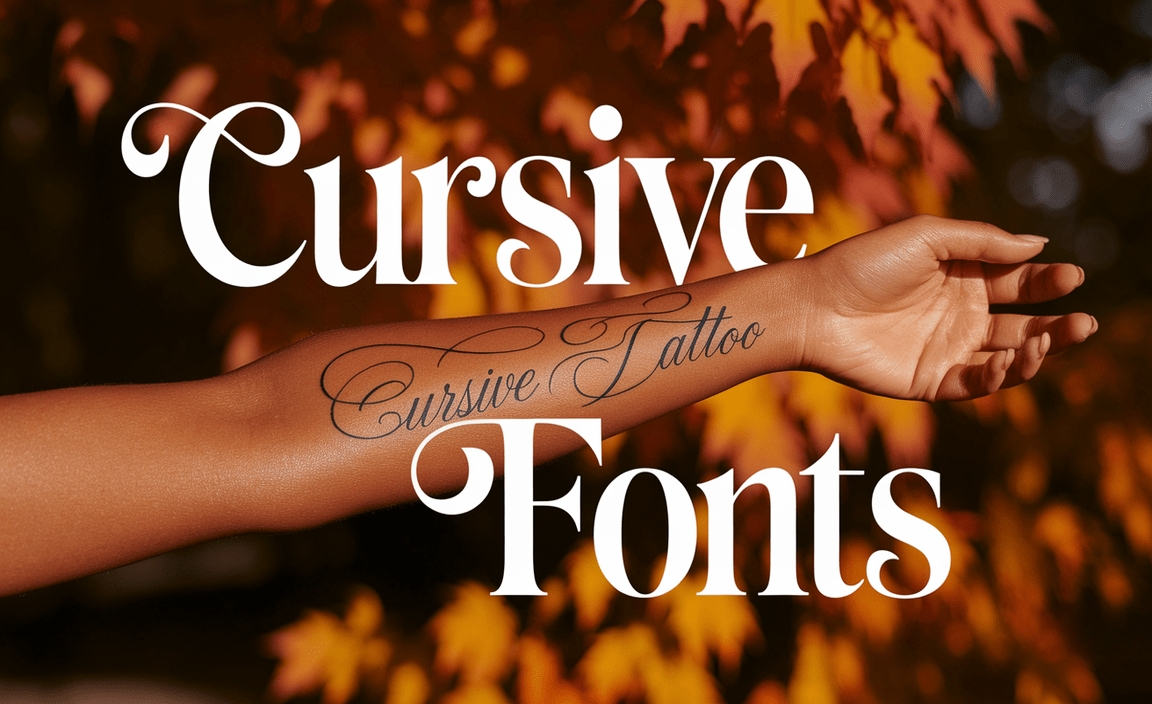
Popular Cursive Tattoo Font Families And Styles
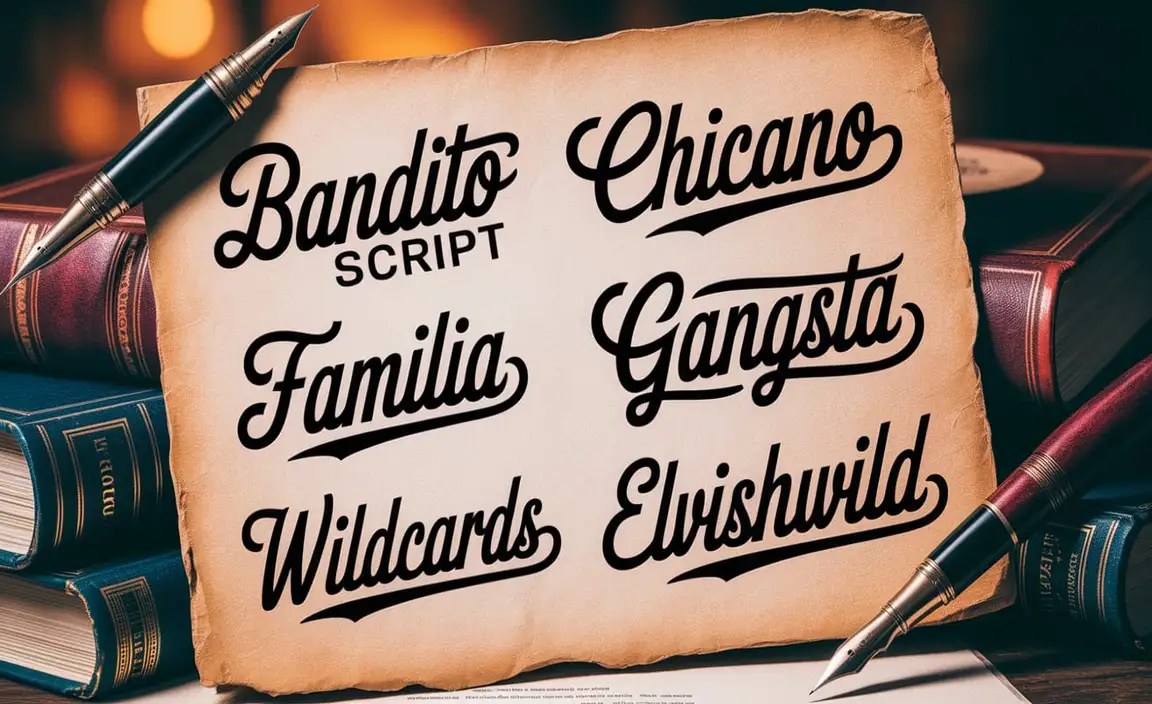
Cursive tattoo fonts are designed to replicate the beauty of cursive handwriting, offering fluid strokes and connections between letters. The cursive style adds a sense of sophistication and elegance to any design. These fonts are perfect for tattoo designs that require a personal, handwritten touch, such as names, quotes, or symbols. The fluid nature of these fonts also allows for artistic expression, making them a popular choice among tattoo artists.
Here are some of the best cursive tattoo fonts to consider for your next tattoo design:
1. Bandito Script
- Designer: Muntab Art
- Styles: Regular
- Description: Bandito Script is a modern cursive font that features smooth, elegant curves and connections. It’s perfect for tattoo designs where a touch of sophistication is desired.
2. Chicano
- Designer: Muntab Art
- Styles: Regular
- Description: Chicano combines cursive elements with bold, artistic strokes, making it a great choice for a tattoo with strong visual impact. It’s especially popular among tattoo artists for large lettering and intricate designs.
3. Familia Script
- Designer: Letrasupply Typefoundry
- Styles: Regular
- Description: Familia Script offers an elegant and refined cursive style. Its delicate strokes make it ideal for wedding tattoos, name tattoos, or any design that requires a touch of grace.
4. Gangsta
- Designer: Muntab Art
- Styles: Regular
- Description: Gangsta combines the boldness of a tattoo font with the flowing characteristics of cursive. It’s perfect for gangster-inspired tattoo designs or something that stands out.
5. Wildcards
- Designer: Blankids
- Styles: Regular
- Description: Wildcards is a playful, cursive font with slightly rounded, whimsical elements. Its modern style adds an artistic touch to any tattoo design, especially for fun and casual designs.
6. Elvishwild
- Designer: Allouse Studio
- Styles: Regular
- Description: If you’re looking for something unique, Elvishwild offers a mystical, flowing cursive style with intricate details. It’s perfect for fantasy-themed tattoo designs, such as names in Elvish or magical symbols.
7. Cardilan Tatto
- Designer: Romie Creative
- Styles: Regular
- Description: Cardilan Tatto is a smooth, elegant script font that offers a subtle yet stylish flair. It’s ideal for tattoos that require both elegance and readability.
Why Choose Cursive Fonts for Your Tattoo?
- Elegance and Fluidity: Cursive fonts, with their flowing lines, bring an air of elegance to your ink. The smooth transitions between letters provide a soft, artistic look that’s perfect for tattoo designs.
- Personal Touch: Cursive handwriting has a personal and intimate feel. Choosing a cursive tattoo font for your design is a way to make your tattoo unique and meaningful.
- Versatility: Cursive fonts come in a variety of styles, from fancy and decorative to simple and clean. Whether you’re designing a bold piece or something delicate, there’s a cursive font style to suit your needs.
- Great for Text and Lettering: Cursive fonts work wonderfully for both short and long pieces of text. Whether it’s a short quote or an extensive passage, a cursive tattoo font can add the perfect amount of flair.
Best Cursive Font Pairings
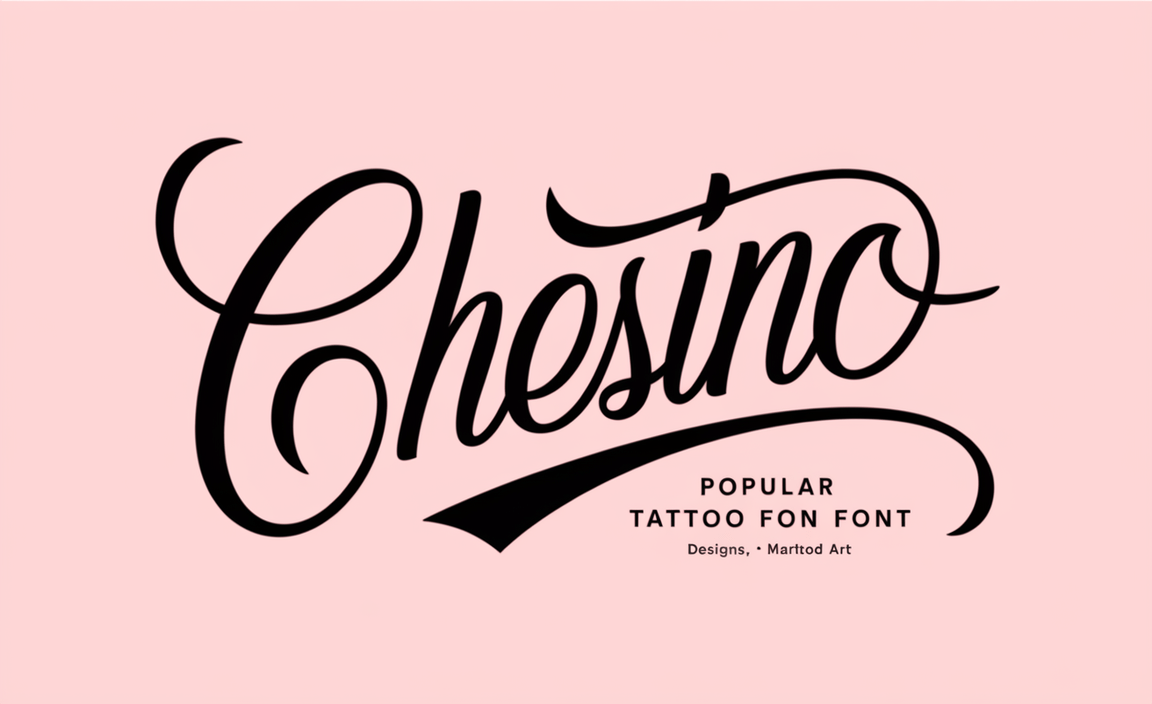
Cursive tattoo fonts pair beautifully with other font styles to create a balanced and visually appealing design. Here are some great pairing options:
- Cursive with Gothic Fonts: Combining cursive fonts with gothic fonts creates a striking contrast that works well for tattoo art. The elegance of cursive blends beautifully with the boldness of gothic letters, perfect for bold tattoo designs.
- Cursive with Modern Fonts: Pairing a cursive font with a modern sans-serif font is a great way to mix traditional elegance with contemporary style. This pairing works well for tattoos that blend traditional scripts with modern messages.
- Cursive with Calligraphy Fonts: Calligraphy fonts have a similar flowing, artistic style to cursive fonts. They can complement each other well in tattoo lettering, especially in designs where the text should flow seamlessly.
Where to Use Cursive Tattoo Fonts
Cursive tattoo fonts are versatile and can be used in a wide range of tattoo designs. Some common uses include:
- Names and Initials: Cursive fonts are popular for name tattoos or initials. The flowing nature of cursive lettering adds a personal and meaningful touch to any name.
- Quotes and Phrases: Long quotes or short phrases are often done in cursive tattoo fonts to add elegance and style. Whether it’s a famous saying or something personal, cursive fonts make the words stand out.
- Symbols and Logos: Cursive fonts can be integrated into logo designs or tattoo symbols to add a touch of class. This is especially popular for tattoos that incorporate letters or monograms.
- Wedding Tattoos: Many couples choose cursive fonts for wedding tattoos. Whether it’s a wedding date or a special quote, cursive fonts add a romantic and timeless touch.
- Instagram Bios: Cursive fonts are also used on Instagram bios to give text a unique look. A stylish cursive font adds a personal flair to your social media presence.
Other Cursive Tattoo Font Styles
Apart from the traditional cursive style, there are variations such as:
- Fancy Cursive Fonts: These fonts are highly decorative, with elaborate swirls and loops. They’re perfect for statement pieces or ornamental tattoos.
- Cute Cursive Fonts: These fonts have softer, rounded letters and a playful style. They work well for smaller tattoos, often used in designs that are lighthearted or whimsical.
- Italic Cursive Fonts: Italic cursive fonts lean slightly to the right, providing a sense of movement and fluidity. These fonts are great for adding emphasis or making specific words stand out in a design.
- Gothic Cursive Fonts: Combining the elegance of cursive with the boldness of gothic style creates a striking, dramatic effect. It’s ideal for tattoos that demand attention.
Tattoo Artist Tips for Cursive Tattoos
Tattoo artists often have strong preferences when it comes to the fonts they work with. When choosing a cursive tattoo font, make sure to:
- Consider the size and placement of your tattoo. Smaller fonts may lose detail over time, while larger fonts make a bold statement.
- Consult with your tattoo artist about the style of cursive that will best suit your design. They may offer suggestions based on their expertise.
- Opt for readability. Some cursive fonts can become difficult to read when scaled down. Choose a font that maintains its clarity, especially for tattoos with longer text.
1.What Is The Best Cursive Tattoo Font?
It depends on your style, but popular choices include Bandito Script, Chicano, and Familia Script.
2.Can Cursive Tattoo Fonts Be Used For Lage Designs?
Yes, cursive fonts work well for large designs, but the font’s legibility is key.
3.What Is The Difference Between Cursive And Calligraphy Fonts?
Cursive fonts are more fluid and casual, while calligraphy fonts are more structured and ornate.
4.Can Cursive Fonts Work For Logos?
Yes, cursive fonts can add elegance to logos, especially for luxury or boutique brands.
5.Are Cursive Tattoo Fonts Readable?
Some cursive fonts can be intricate, so it’s important to choose one that maintains legibility.
6.Can I Use Cursive Fonts For Tattoo Lettering?
Absolutely! Cursive fonts are ideal for tattoo lettering, especially for names, quotes, and symbols.
7.Do Cursive Tattoo Fonts Come In Different Styles?
Yes, there are many styles, including fancy, cute, gothic, and italic cursive fonts.
8.How Do I Choose The Right Cursive Tattoo Font?
Consider the tattoo’s size, placement, and message. Consult your tattoo artist for recommendations.
9.Can Cursive Fonts Be Paired With Other Font Styles?
Yes, pairing cursive with modern or gothic fonts can create striking designs.